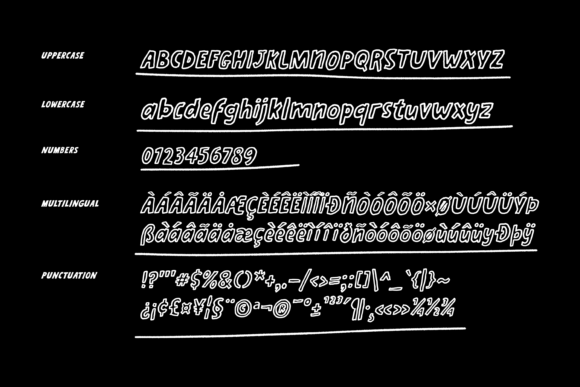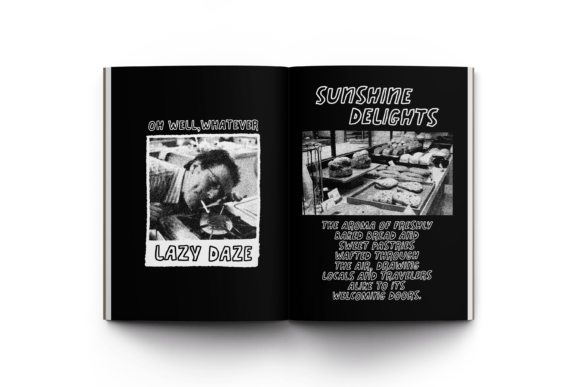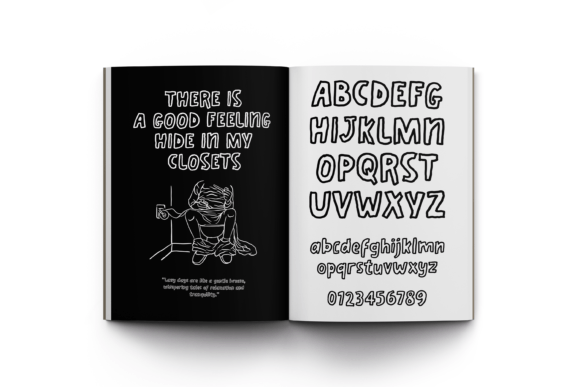
Introduction to Lazy Daze Font
Lazy Daze is a rough typeface with a bold outline for your casual creative needs.
Perfect for handwritten, title notes, fashion mockups, social media, or posters .